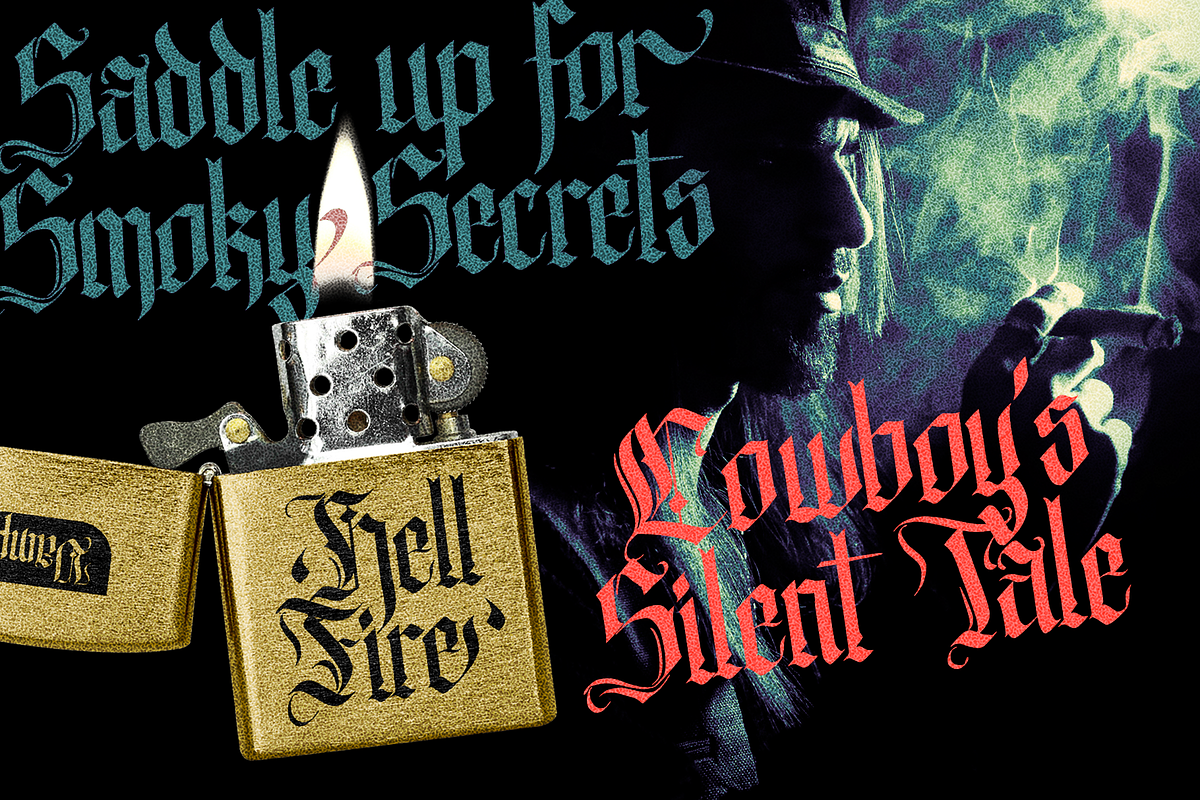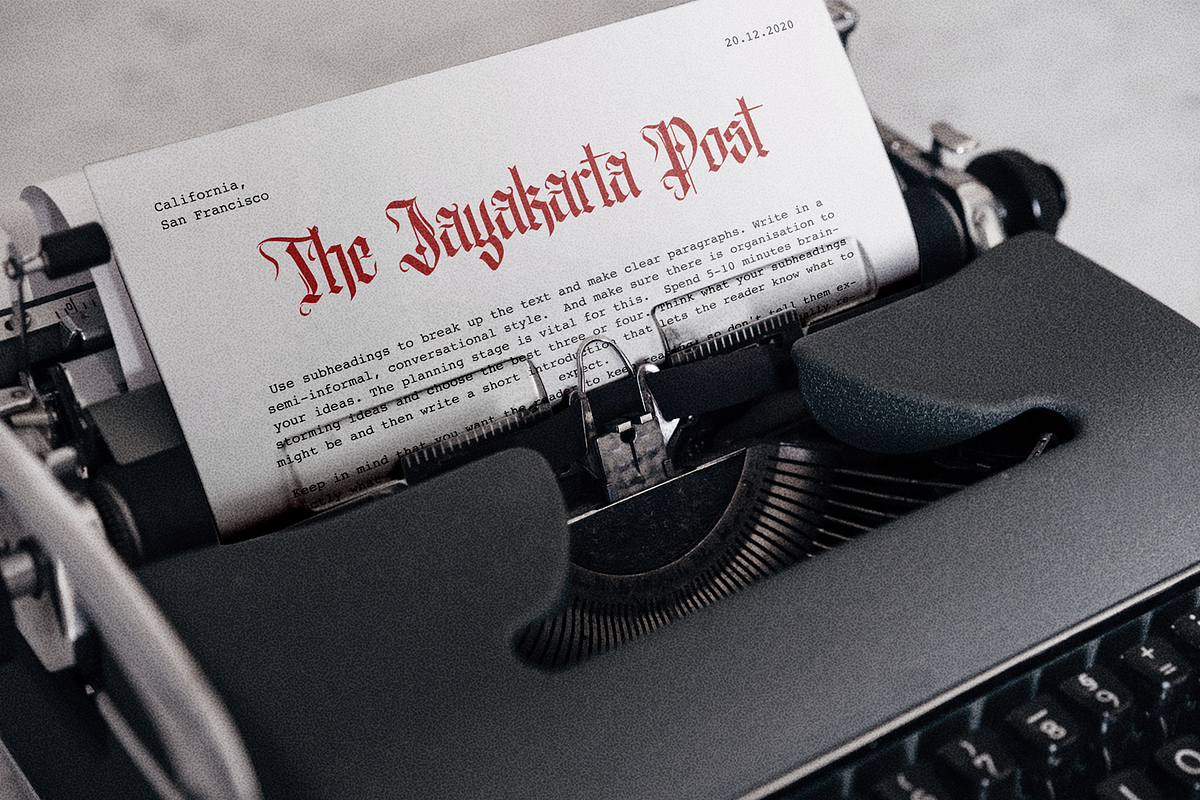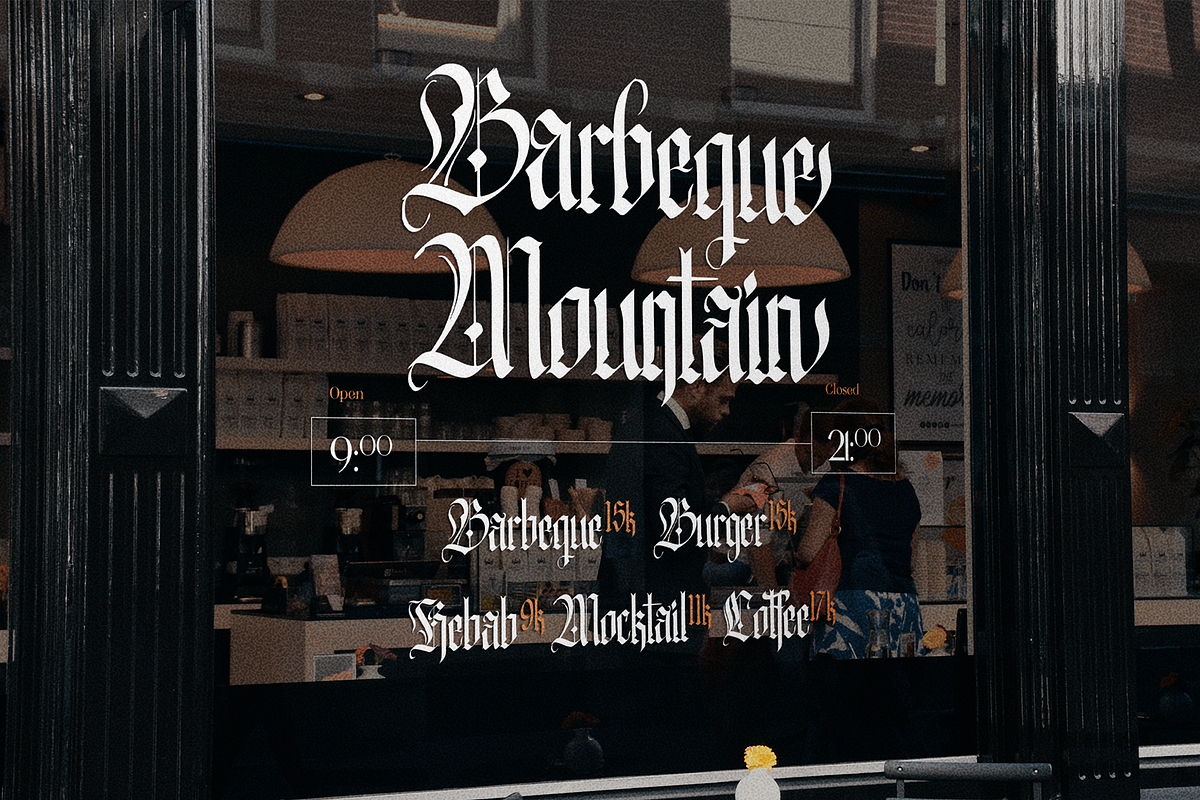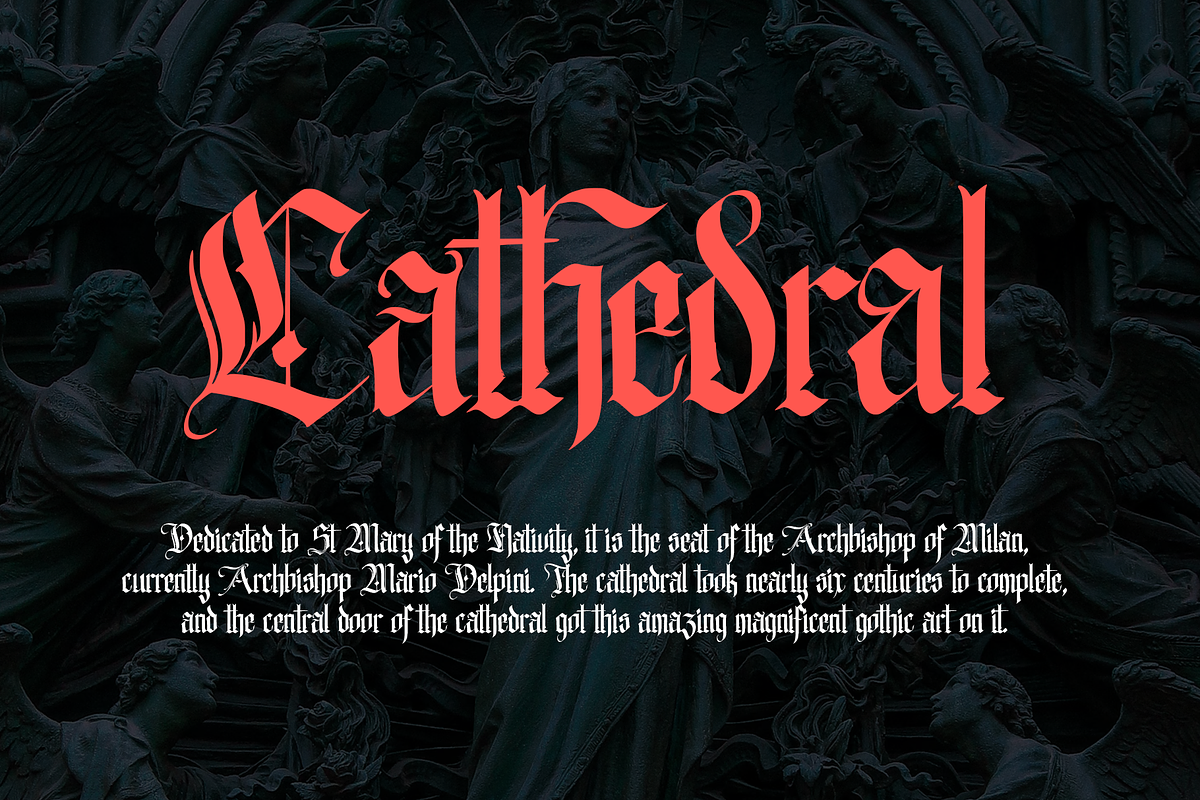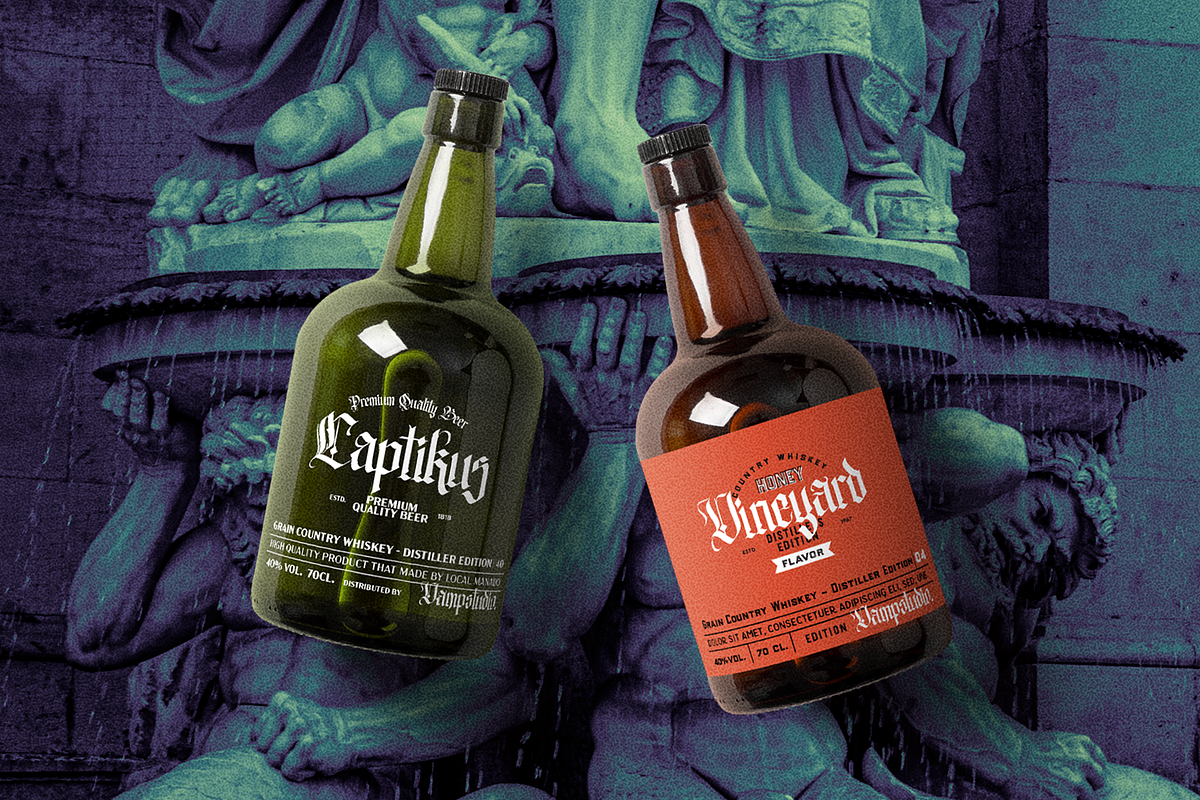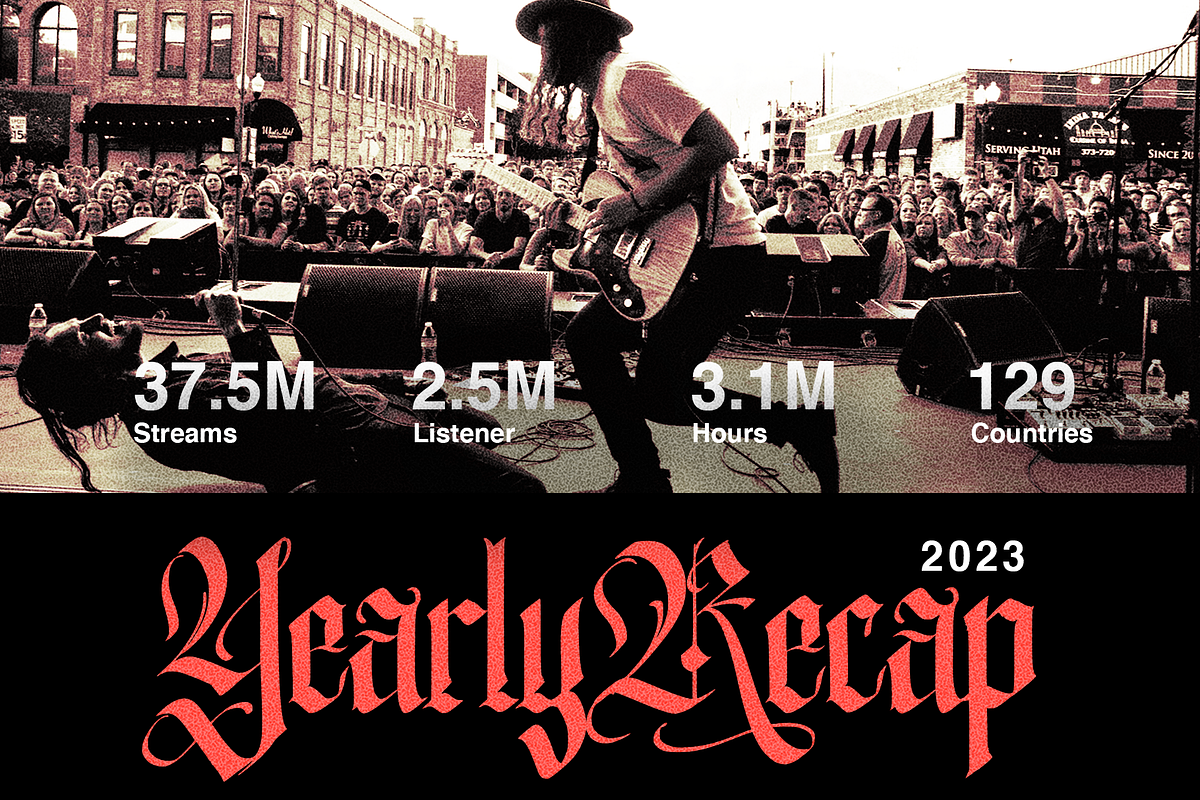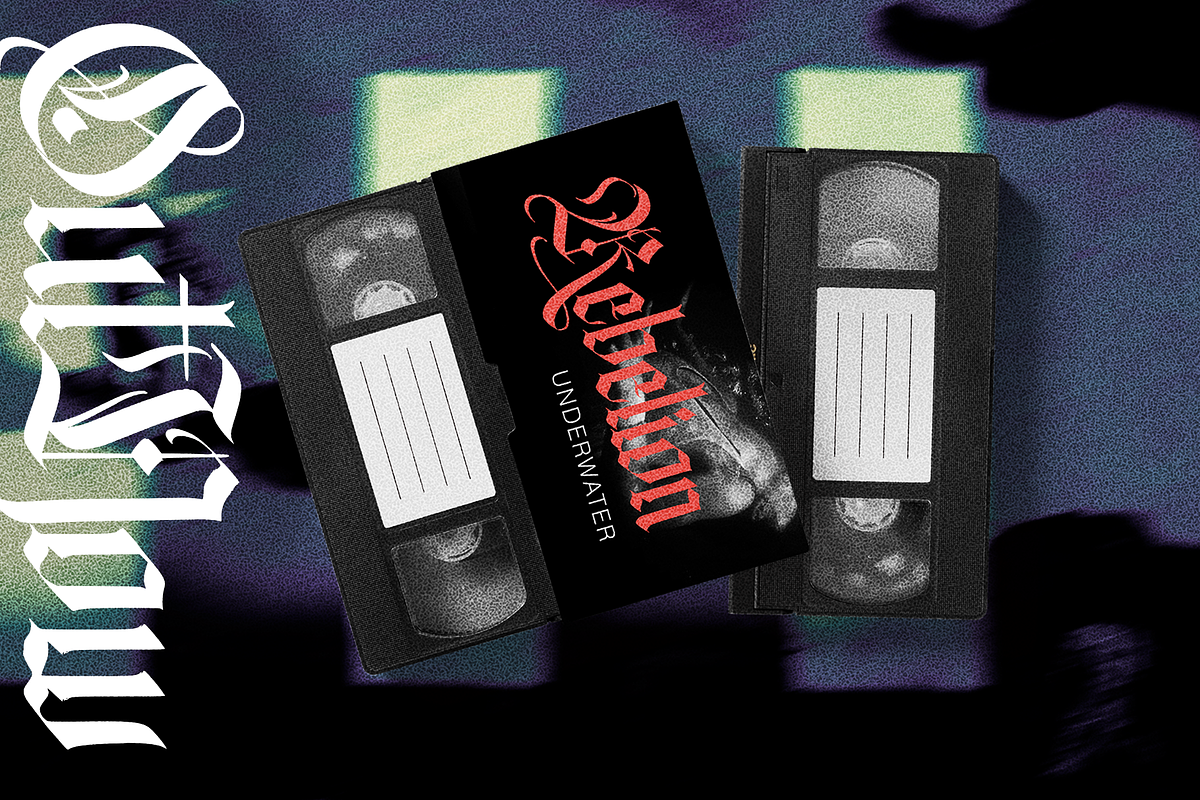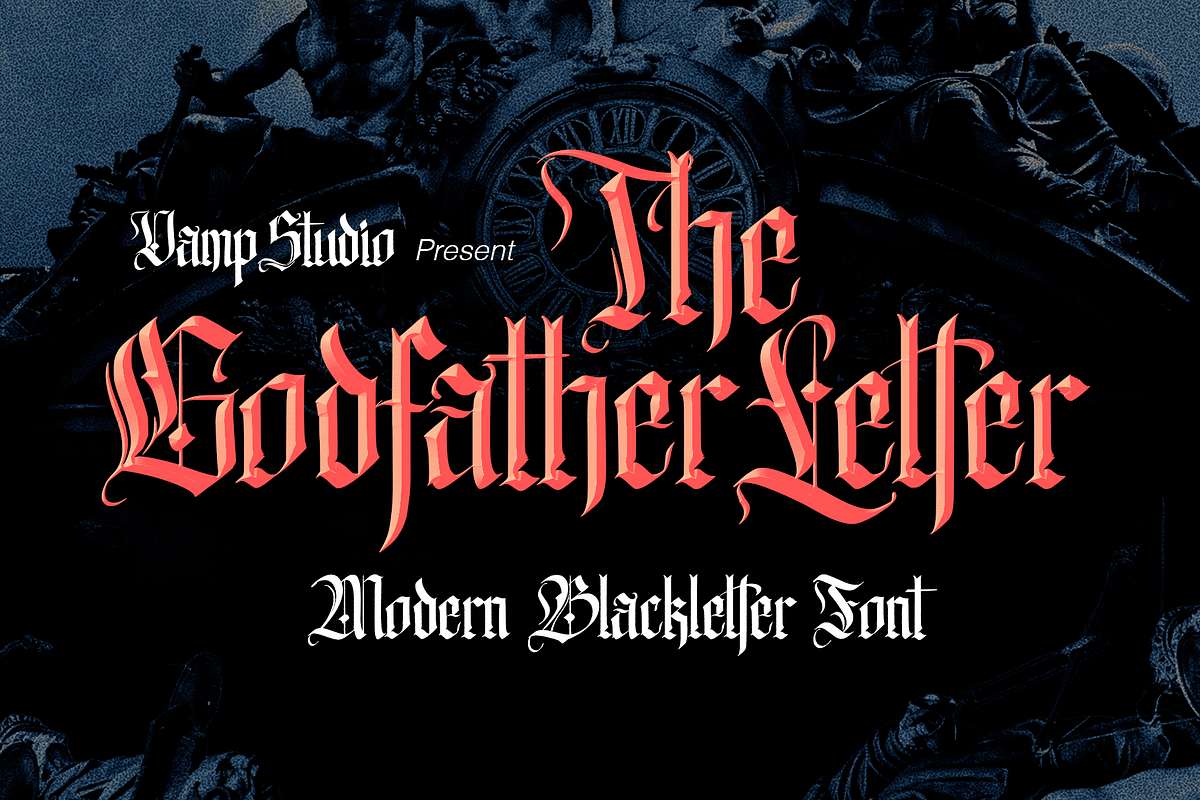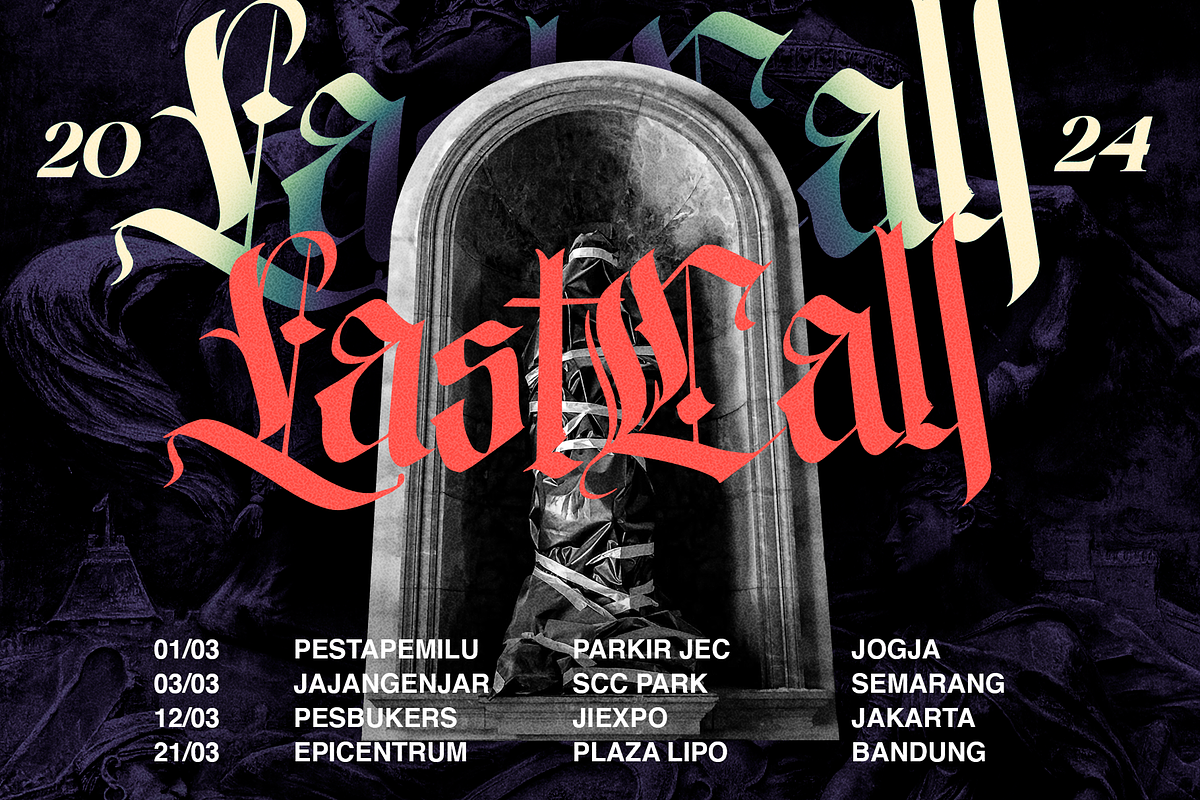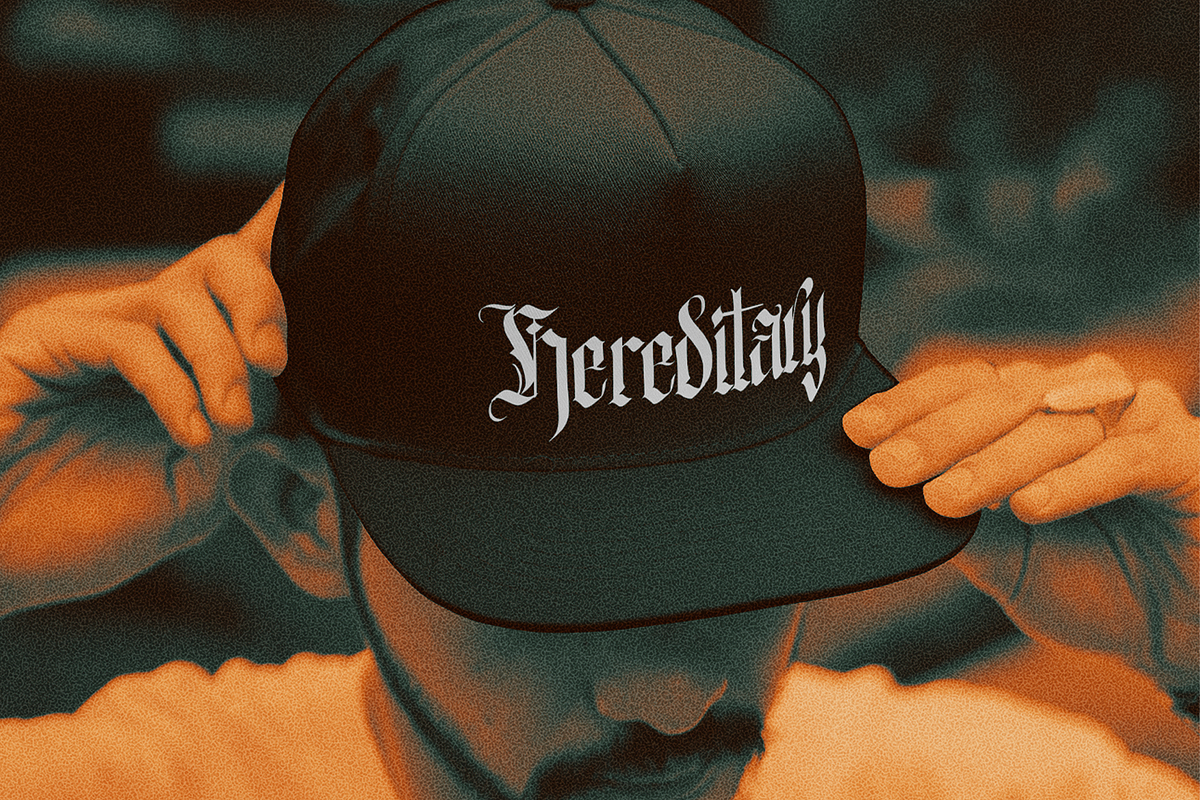
The Godfather Letter Blackletter
The Godfather Letter Font: A bold nod to modern blackletter Old English style. This font is a powerful fusion of tradition and contemporary design, adding a touch of timeless sophistication to your projects. Inspired by classic aesthetics, each letter exudes a sense of strength and character. Ideal for creating impactful headlines, branding, or designs that demand a touch of vintage elegance.
The Godfather Letter is perfect for branding projects, logo, wedding designs, social media posts, advertisements, product packaging, product designs, label, photography, watermark, invitation, stationery and any projects that need handwriting taste.